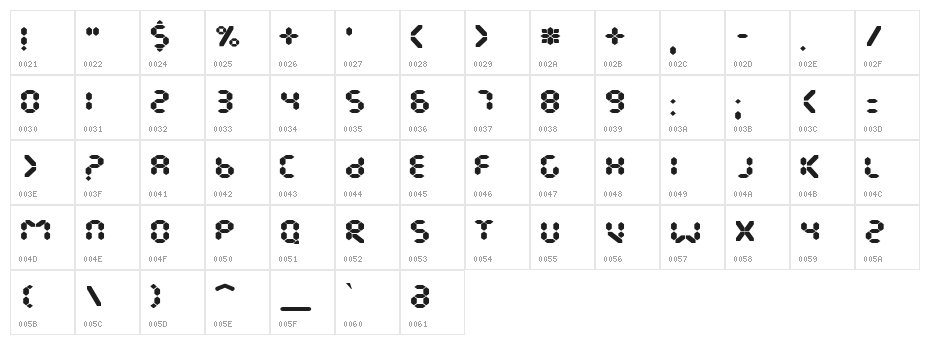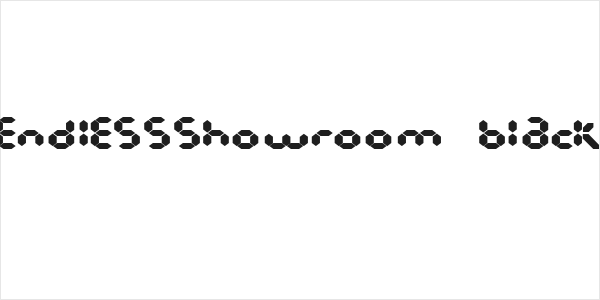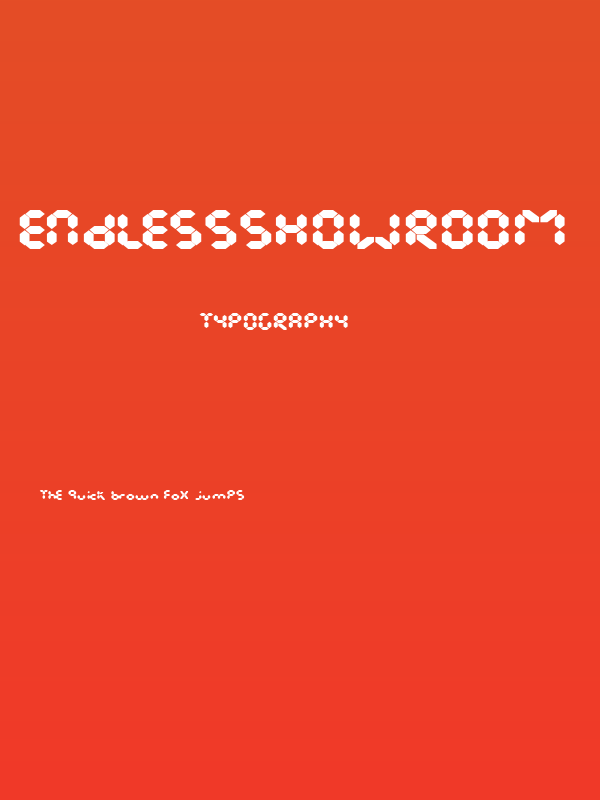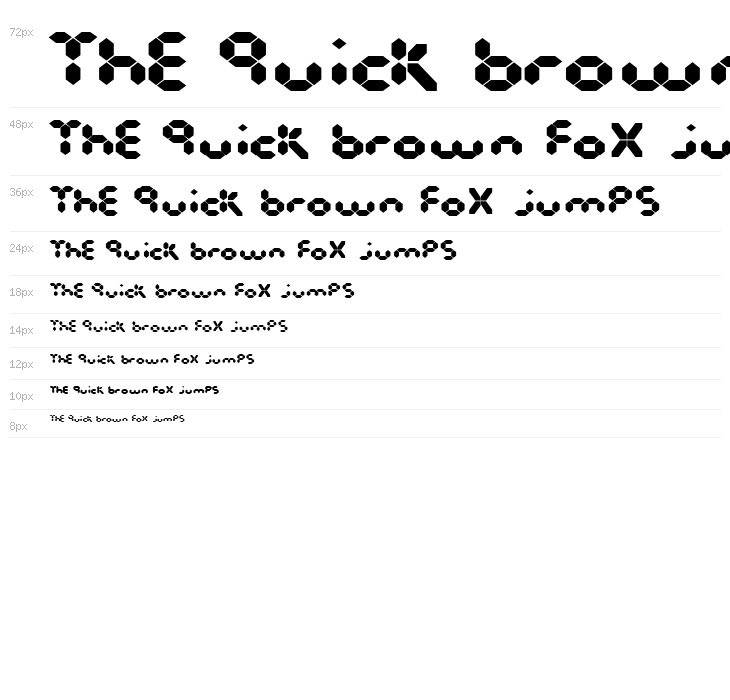
EndlessShowroom Black Font
EndlessShowroom Black Description
This font features a bold and geometric design, characterized by its use of octagonal shapes to form each character. The letters and numbers are constructed with a series of connected hexagons, giving it a futuristic and digital appearance. The uniformity in shape and size across all characters creates a cohesive and structured look. This font is highly stylized, making it stand out with its unique pattern and bold presence. The spacing between characters is consistent, maintaining a balanced and organized aesthetic. Its distinct style is suitable for modern and tech-oriented designs, offering a striking visual impact.
| Overall Style | Futuristic, Modern |
| Proposed Projects | Ideal for tech branding, digital art, futuristic posters, and video game titles. |